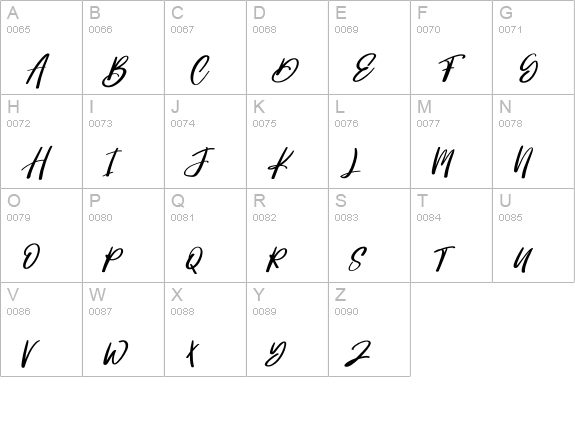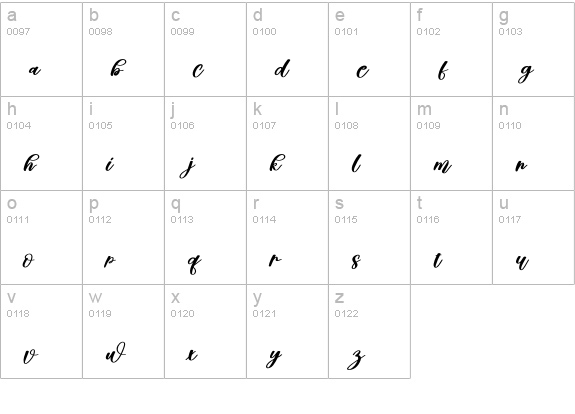
Mountain Font Details
Mountain is a shareware font in the Script > Handwritten category, designed by scratchones. It has been downloaded 15 times and is available for Windows, Mac and Linux.
Introducing the captivating Mountain font, a versatile typeface that exudes a sense of strength and grandeur. This font is perfect for a wide range of design projects, from logos to branding to posters. With its rugged yet elegant style, Mountain font adds a touch of adventure and sophistication to any composition.